Remembering 2011, Previewing 2012
It’s 2012 already but before we say goodbye to 2011 entirely, there were tidbits from the last 365 we don’t want to forget. And while we’re at it, we’ve included a preview of typefaces slated for release in the New Year.
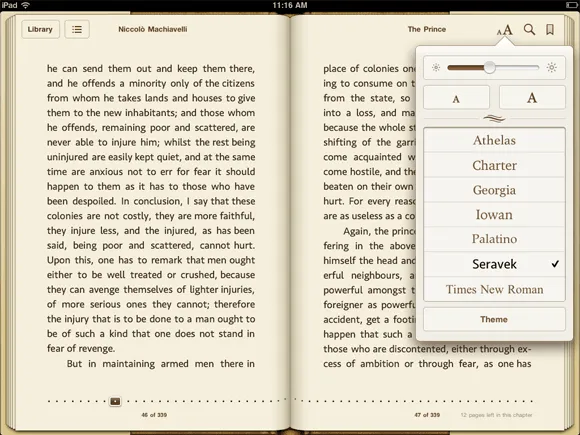
Seravek in iBooks
The 1.5 update to Apple’s iBooks app included several new typefaces, our Seravek among them. Of the seven type choices within the app, Seravek is the only sans serif.
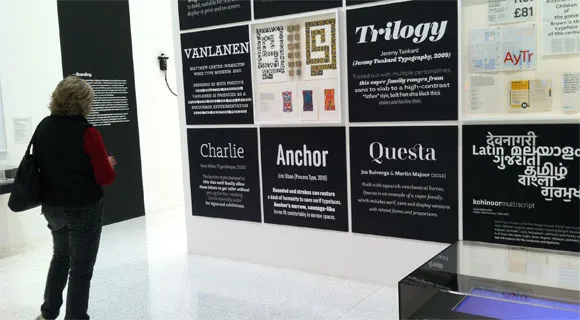
Anchor at the Walker Art Center
Like MoMA’s acquisition of several typefaces last year, the exhibition Graphic Design: Now in Production currently on view at the Walker Art Center highlights typefaces as significant cultural artifacts in their own right. Anchor was featured among a number of other typefaces as further evidence of the emerging role of designers as producers.
Five Long Years
After five years of tweaking, polishing and refining, we finally pressed the launch button on Nicole’s typeface Elena. Up next for Nicole? A display font loosely inspired by the rhythms of the brush marker.
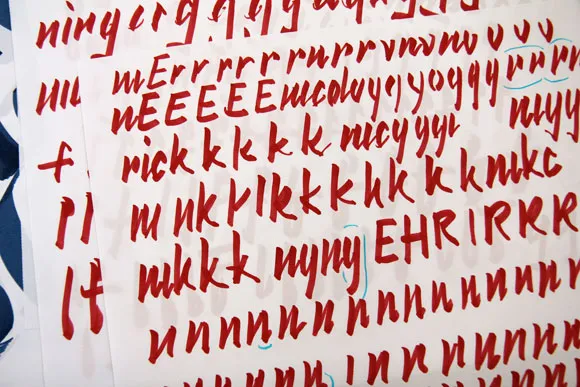
One year on: Webfonts and Capucine
October 6 of 2010 marked the launch of our webfonts program making 2011 our first full year with webfonts on offer. And the report so far? Roughly 38% of fonts purchased on our site were either webfonts or webfont/desktop combinations.
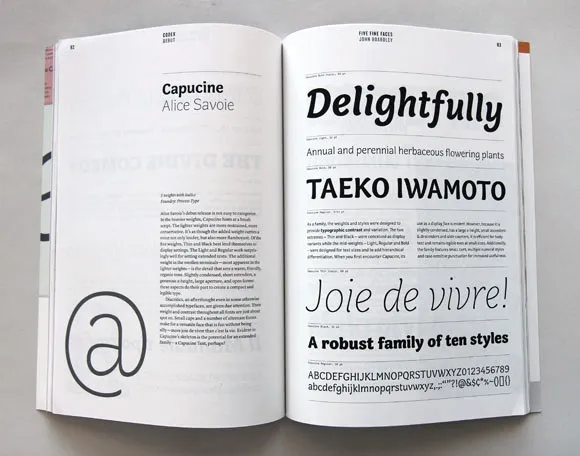
Alice’s typeface Capucine also celebrated its first year post-release. We were delighted to see it featured in the inaugural issue of Codex. Of course, seeing it used for what Alice originally intended – as a typeface for magazine listings – in the November issue of Seattle Met also made our list of wonderful things.
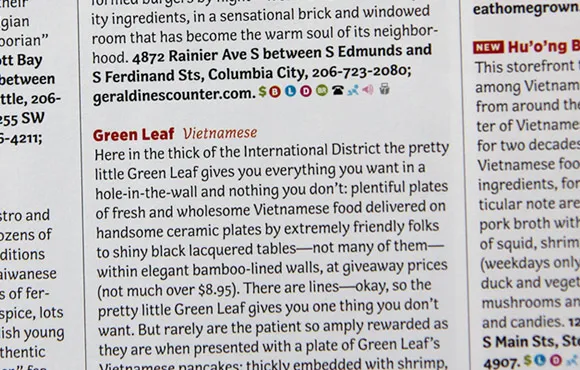
Henry B. Weimelt
We were surprised to learn this year that Eric’s great grandfather, Henry B. Weimelt, was a passionate letter maker when not working his shift at the local Post Office. For years, relatives told tales of his after-hours letter work but it wasn’t until this year that his collection of hundreds – if not thousands – of handcrafted letters were uncovered and gifted to Eric. After sorting through the collection though, Henry’s intentions remain a mystery. What were the letters used for? Why did he make them? We’ve posted one half of one small box on our Flickr account.
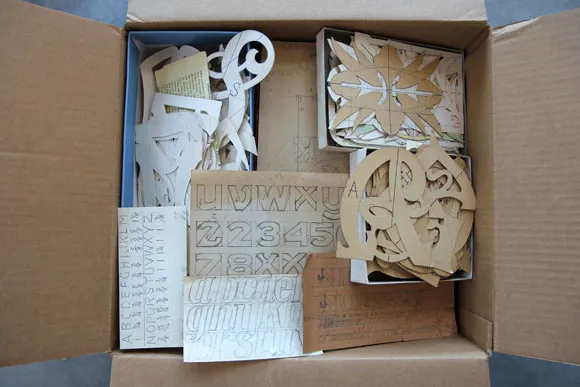
On Deck for 2012
And last but not least, a good deal of 2011 was spent focusing on releases for 2012. In the New Year Eric will release his 12-font family Chrono followed by the boisterous display companion to Klavika, Klavika Display.